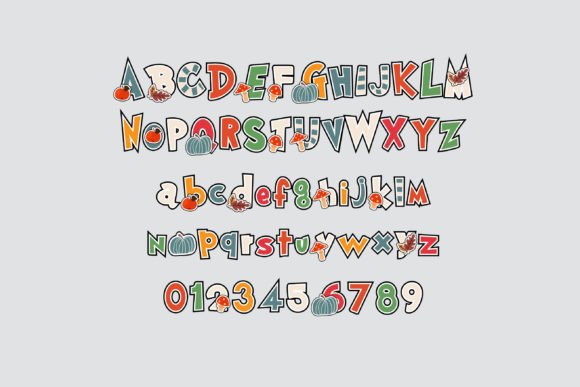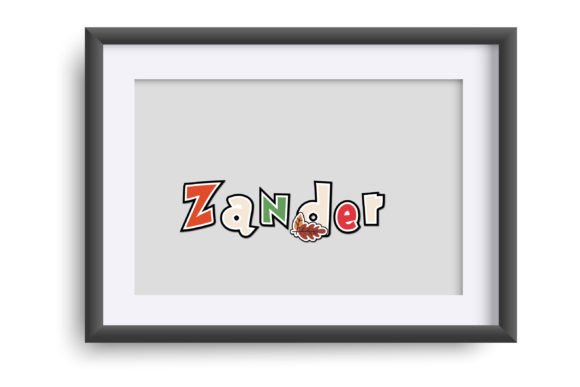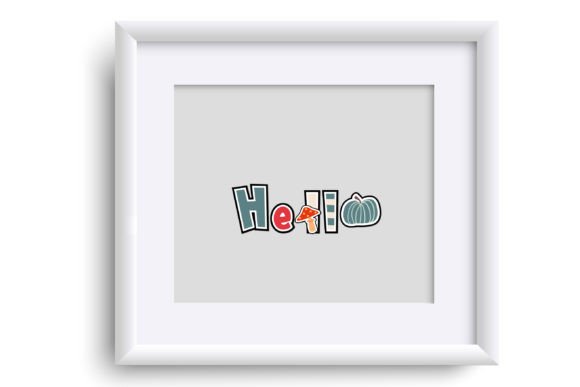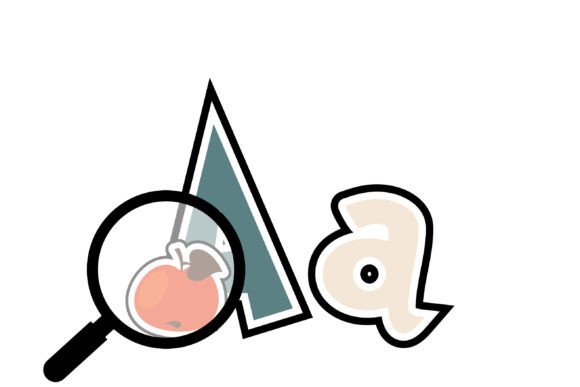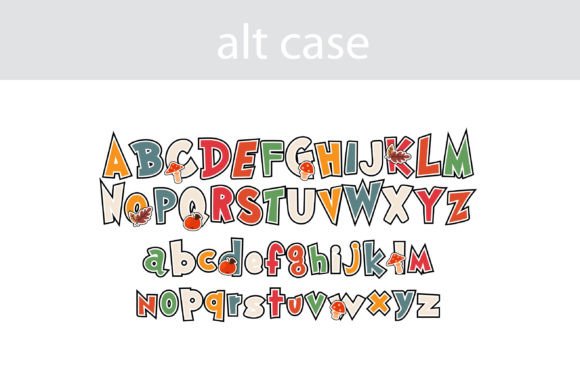
Going to Fall with the Vibrant Font
As the seasons change and autumn arrives, designers and crafters are on the lookout for fresh inspiration and creative tools to add a touch of fall flavor to their projects. If you’re looking to infuse your designs with the warmth and coziness of the season, you’re in luck! Introducing the “Going to Fall” font, a full-color font that features youthful, colorful lettering, leaves, and pumpkins in a beautiful autumn color palette.
A Font that Embodies the Spirit of Fall
This delightful font is perfect for designers and crafters who want to add a pop of color and whimsy to their projects. The “Going to Fall” font boasts an array of colorful letters, leaves, and pumpkins that evoke the feeling of crunchy leaves, warm apple cider, and cozy sweaters. Whether you’re creating invitations, greeting cards, or social media graphics, this font is sure to bring the magic of fall to your designs.
What Makes this Font Special?
Adding Personality to Your Designs
Full-color SVG fonts like “Going to Fall” are the perfect way to add a touch of personality to your designs. With a full range of colors and styles to choose from, you can create anything from simple, yet eye-catching graphics to more intricate and elaborate designs. Whether you’re a professional designer or a crafter, this font offers endless possibilities for creative expression.
The “Going to Fall” font is an excellent addition to any designer’s or crafter’s toolkit. Its versatility and range of colors make it suitable for a wide range of projects, from:
- Fall-themed invitations and greeting cards
- Custom signage and banners
- Iron-on designs and sublimation projects
Get Ready to Fall in Love with this Font!